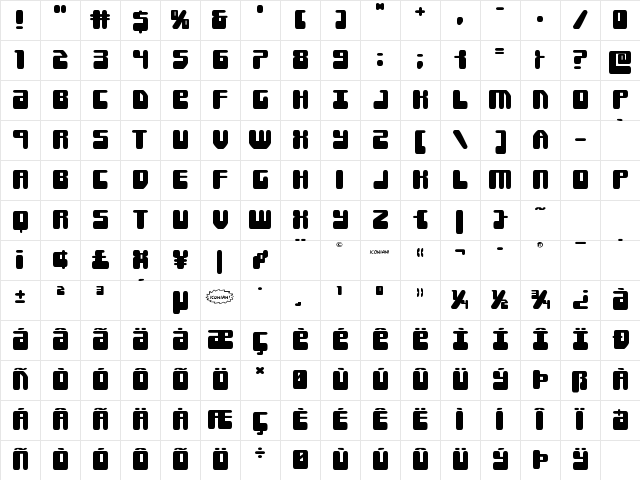
Complete Force Majeure Expanded glyph index. Displaying only characters natively supported by Force Majeure Expanded font.
Force Majeure brings high-energy athletic personality to the page - its confident, muscular forms are built for impact.